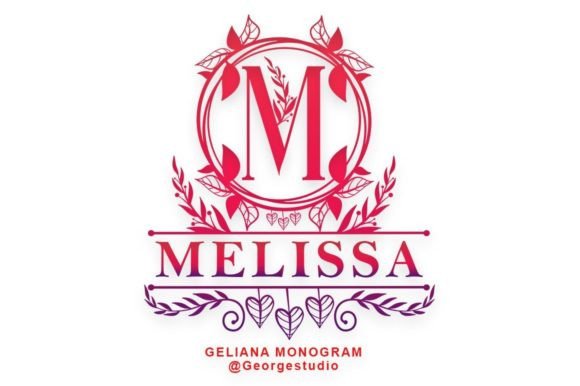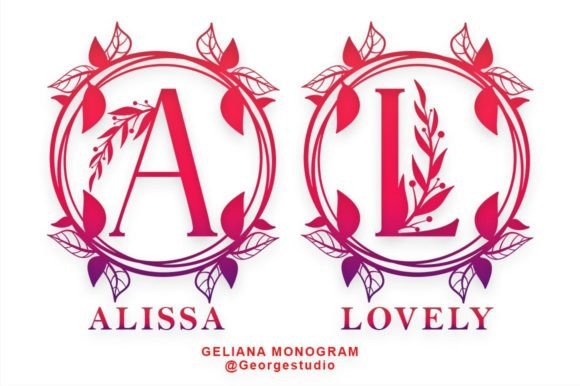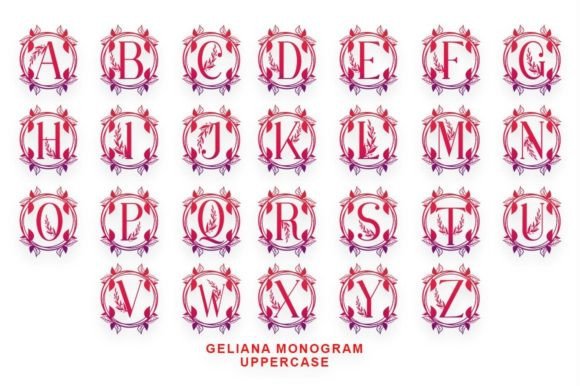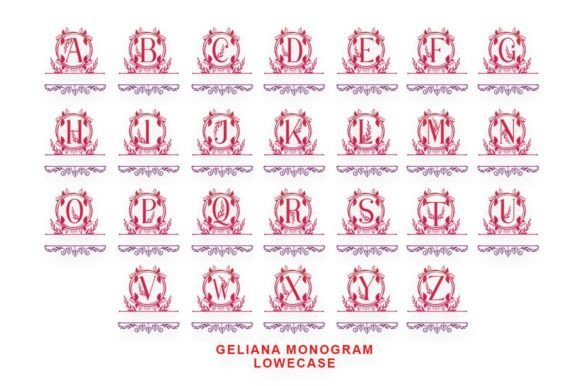
Introduction to Geliana Monogram Font
Have you ever stumbled upon a beautiful font that instantly sparks creativity and inspires you to work on a new project? That’s exactly what happened to me when I discovered the stunning Geliana Monogram Font. Its elegant design, paired with lovely ornaments, immediately caught my attention and made me envision a gorgeous wedding invitation. The authentic feel of this font is truly captivating, and I couldn’t wait to dive deeper and explore its potential.
As a designer, I know how valuable it is to have access to high-quality design resources like the Geliana Monogram Font. With its transparent background, this font is perfect for creating stunning social media posts, beautiful stationary art, and cute greeting cards. And the best part? It’s available for free download, making it an incredible asset for any creative project.
Key Features of Geliana Monogram Font
- Unique and elegant monogram design perfect for creative projects and design resources.
- High-quality font with transparent background, ideal for use on various backgrounds and designs.
- Includes a range of font sizes and resolutions to suit various design needs.
- Perfect for use in graphic design, digital art, and other creative endeavors.
- Can be used to create custom monograms, logos, and other design elements.
Honest Review: Geliana Monogram Font
I recently had the chance to work with the Geliana Monogram Font, and I must say it’s a fantastic addition to any design resource collection. This free download is perfect for any creative project that needs a touch of elegance.
What I love about the Geliana Monogram Font is its high quality and versatility. ✨ The font comes in various styles and sizes, making it easy to customize to suit your design needs. The transparent background option is also a huge plus, allowing you to seamlessly integrate the font into your design.
- Supports multiple font styles and sizes
- Comes with a transparent background option
- Perfect for creative projects and design resources
However, I did encounter some limitations while using the Geliana Monogram Font. ⚠️ The font doesn’t support bold or italic styles, which can be a bit restrictive for some designers. Additionally, the font may not be compatible with all operating systems.
Overall, I’m thoroughly impressed with the Geliana Monogram Font. It’s a great design resource that can elevate any creative project. With a little creativity, you can work around its limitations and achieve stunning results. I highly recommend adding this font to your design collection.
Designing with a Transparent Background
The Geliana Monogram Font is a high-quality design resource that can be used with a transparent background. This makes it ideal for creating custom designs for your creative project. Simply place the font on a transparent background and use it in your design.
The Geliana Monogram Font is commonly used in various design projects such as branding, logos, and invitations. It is also used in digital design projects such as social media graphics and website headers.
Getting the Most Out of It
To get the most out of the Geliana Monogram Font, use it in combination with other design elements such as images and graphics. Experiment with different font sizes and colors to create a unique design. You can also use it in conjunction with other design resources to create a cohesive look.
Alternatives to Geliana Monogram Font
Ambitron Font
Ambitron Font is a high-quality, modern monogram font suitable for various creative projects. It features a transparent background, making it ideal for layering and combining with other design elements. When to use: Ambitron Font is perfect for designers who want a sleek, minimalist look for their branding materials, business cards, or product packaging.
Comparison to Geliana Monogram Font: Ambitron Font has a more contemporary feel and a wider range of customization options, making it a great alternative for designers who want a more modern look.